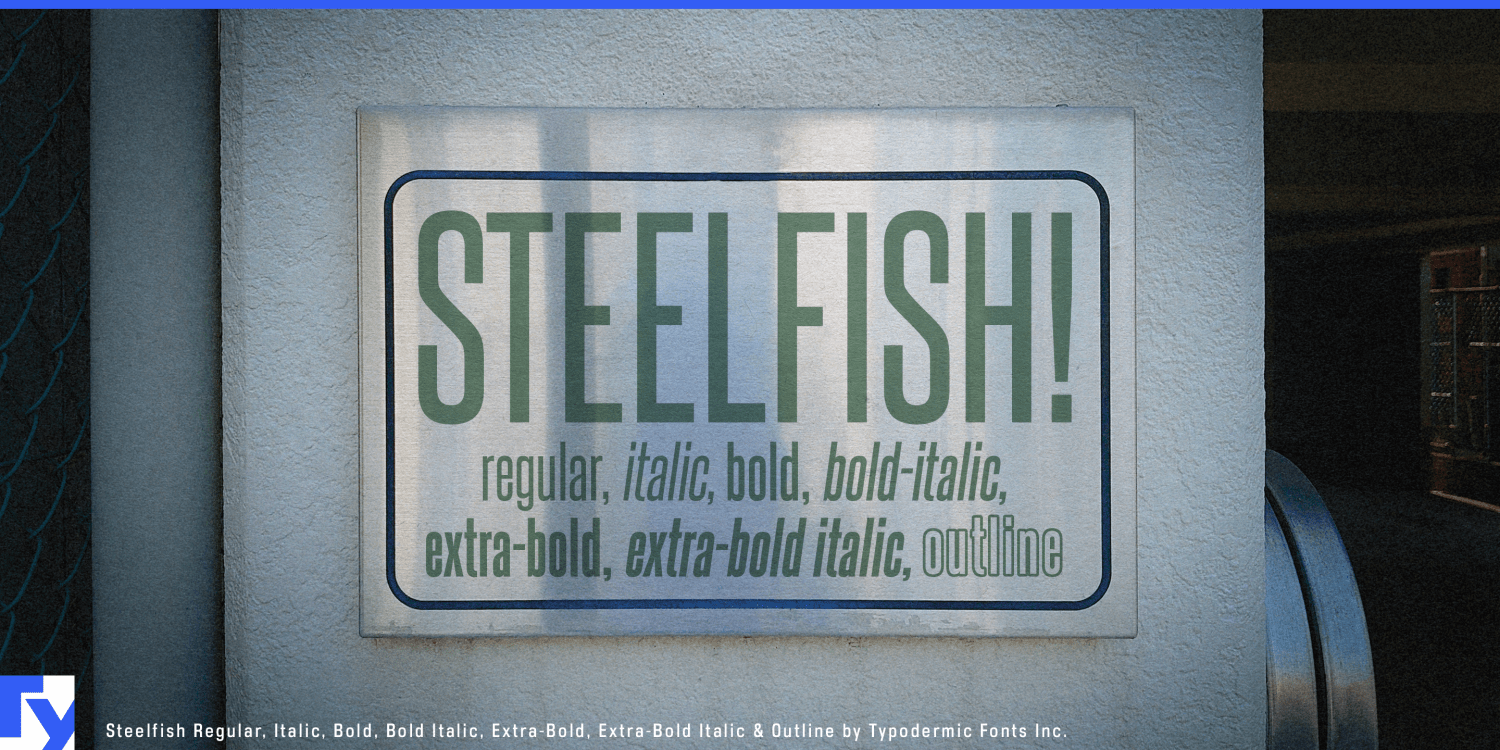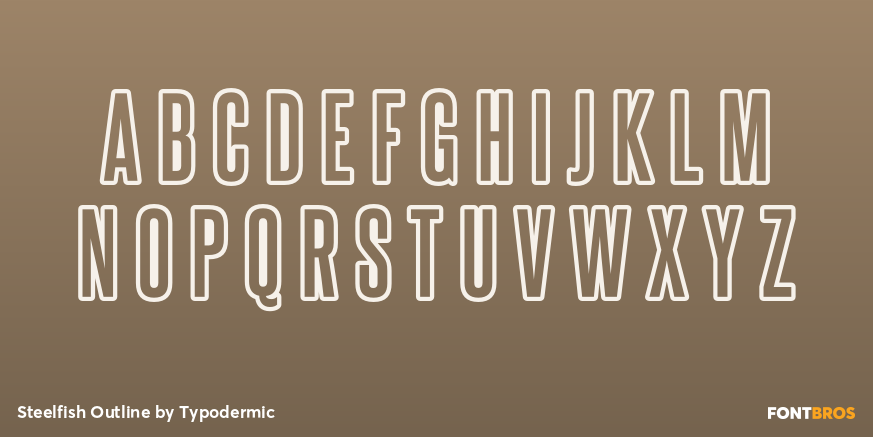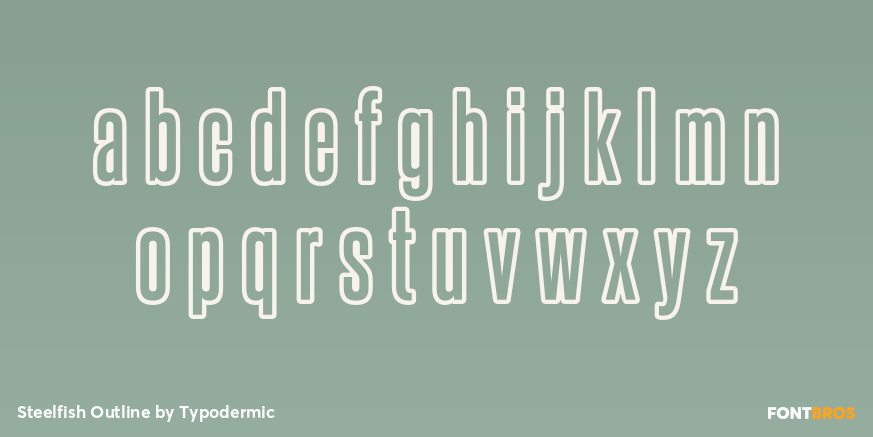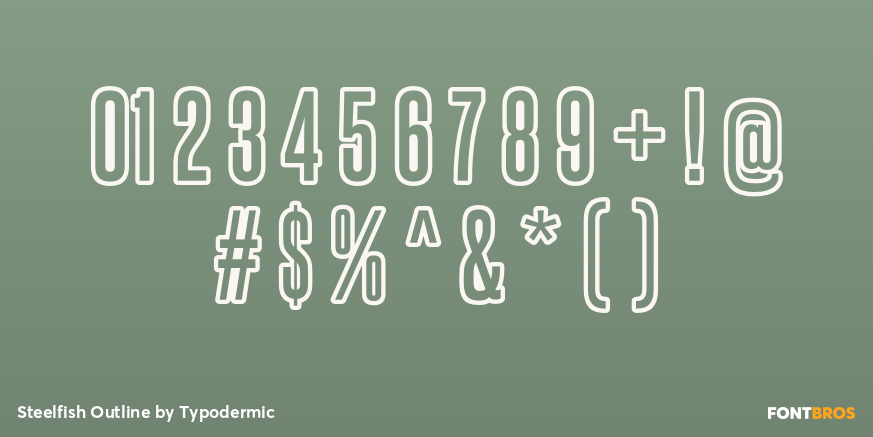
Steelfish Outline
Steelfish Outline redraws the family's ultra-condensed headline forms as strong open contours. It preserves Steelfish's narrow footprint and tall, economical proportions while replacing solid mass with a lighter graphic structure, making it a true display alternative to the ordinary weights rather than another step on the weight scale.
Use Steelfish Outline for player names, tournament graphics, documentary titles, conference screens, event posters, product launches, and oversized numerals that must remain large inside a restricted width. The open faces can reveal photography, color, or texture behind the lettering. Keep it to prominent short text where the inner and outer contours stay distinct, and use solid Steelfish styles for captions and dense information.